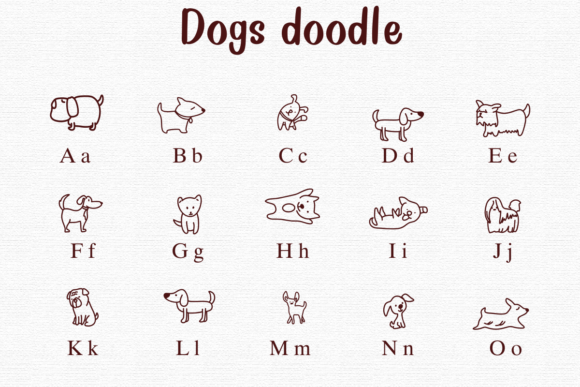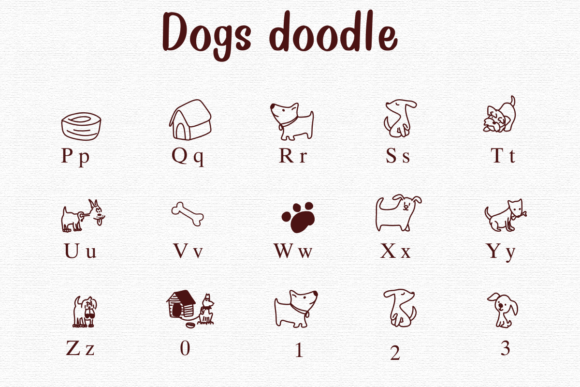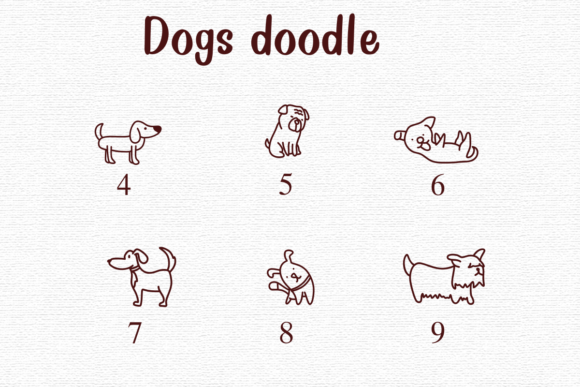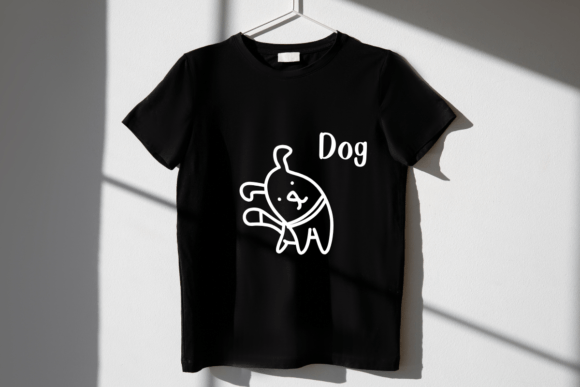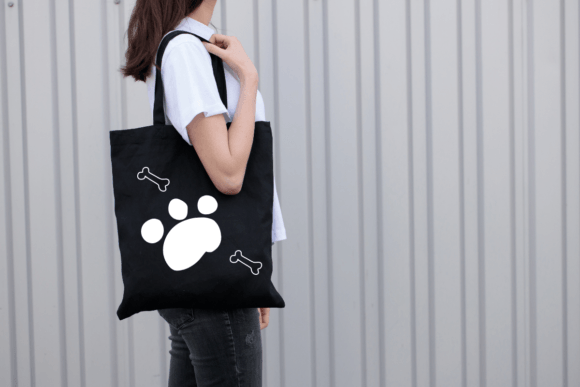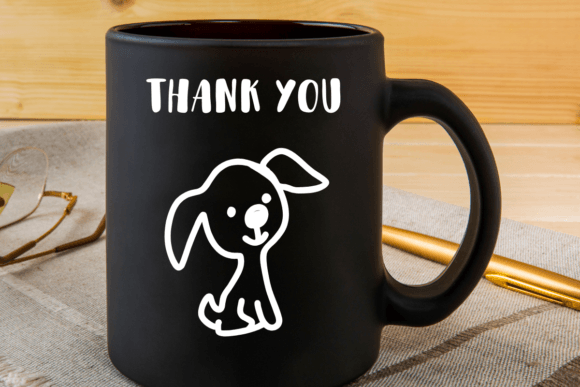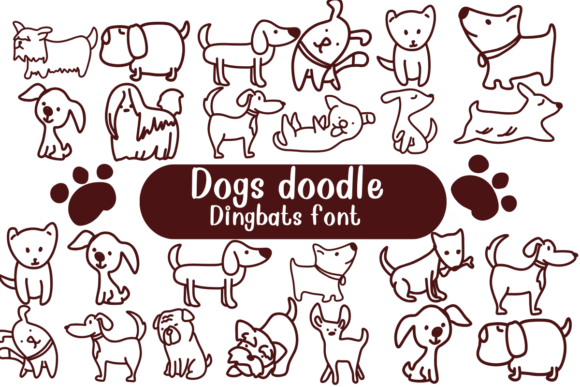
Dogs Doodle Font: Unleash Your Creativity with a Canine Twist
Are you a designer, crafter, or DIY enthusiast looking for a unique and playful font to add a personal touch to your projects? Look no further than the Dogs Doodle Font, a delightful dingbats font that combines the joy of dogs with the world of typography. In this article, we’ll dive into the features and benefits of this charming font, and explore how it can elevate your creative projects.
What is Dogs Doodle Font?
Dogs Doodle Font is a dingbats font that features an adorable collection of dog-themed illustrations, including breeds, dog accessories, and fun canine-inspired elements. This font is perfect for anyone who loves dogs and wants to add a touch of whimsy to their designs. With Dogs Doodle Font, you can create eye-catching and engaging projects that are sure to delight dog lovers of all ages.
Key Features of Dogs Doodle Font
- Canine-themed illustrations: The font features a wide range of dog breeds, dog accessories, and fun canine-inspired elements, such as bones, paws, and dog houses.
- Dingbats font style: The font is designed in a dingbats style, which means that each character is replaced with a unique illustration, making it perfect for adding visual interest to your projects.
- Scalable: The font is highly scalable, making it perfect for use in a variety of projects, from small crafts to large-scale designs.
Creative Projects with Dogs Doodle Font
Dogs Doodle Font is versatile and can be used in a wide range of creative projects, including:
- Wedding invitations: Add a playful touch to your wedding invitations with dog-themed illustrations, perfect for dog-loving couples.
- DIY crafts: Use Dogs Doodle Font to create custom signs, decorations, and accessories for your home or office.
- Logos and branding: Create a unique and memorable logo for your dog-related business or organization.
- Decorations: Use the font to create custom banners, garlands, and other decorations for dog-themed parties and events.
- Stationery and gifts: Add a personal touch to your stationery, cards, and gifts with dog-themed illustrations.
Here are a few tips and inspiration ideas to get you started with Dogs Doodle Font:
- Mix and match: Combine different dog breeds and illustrations to create a unique and playful design.
- Add text: Use Dogs Doodle Font in combination with other fonts to create a visually appealing text-based design.
- Experiment with colors: Try out different color schemes and combinations to add depth and interest to your design.
- Get creative with sizes: Use the font in different sizes to create a visually appealing hierarchy of elements in your design.
Dogs Doodle Font is a fun and versatile font that is perfect for designers, crafters, and DIY enthusiasts who love dogs. With its wide range of canine-themed illustrations and easy-to-use design, this font is sure to inspire creativity and add a personal touch to your projects. Whether you’re working on a wedding invitation, DIY craft, or logo design, Dogs Doodle Font is a great choice for anyone looking to add a touch of whimsy and fun to their designs.